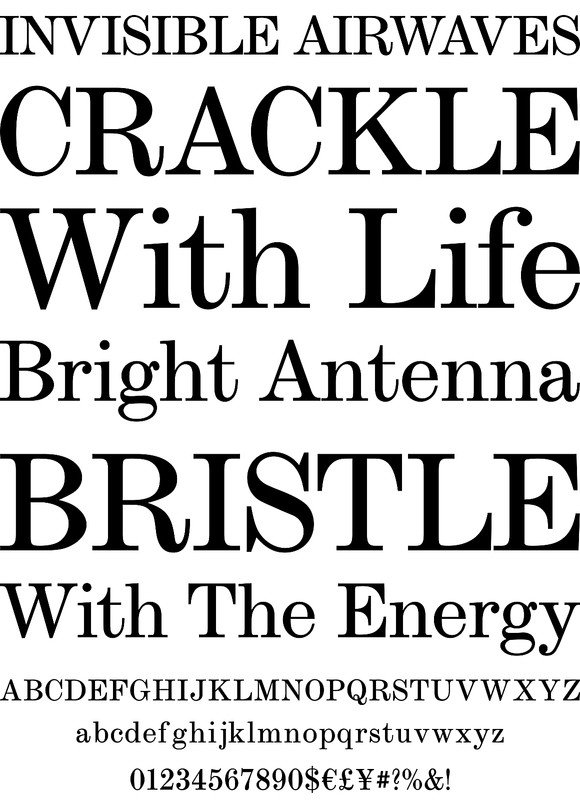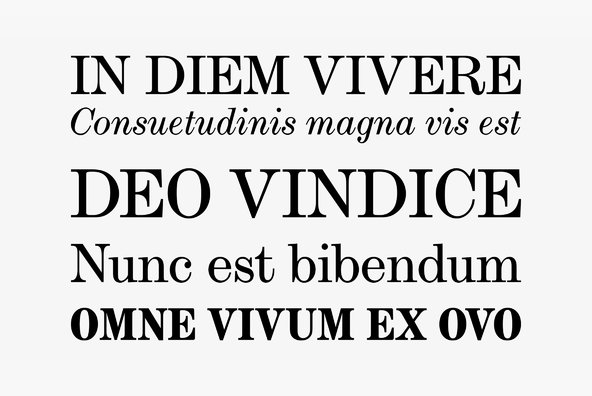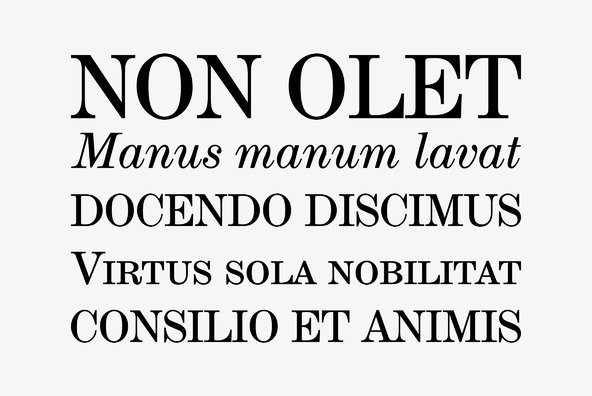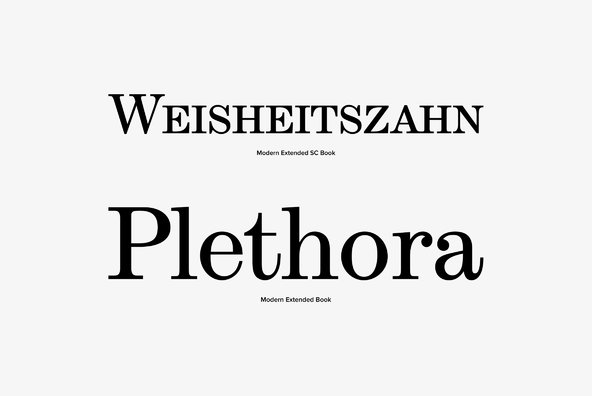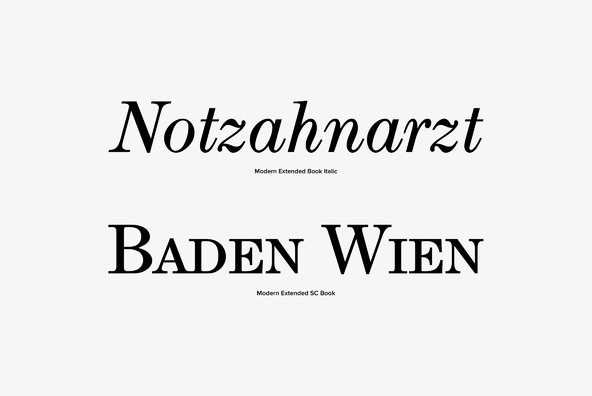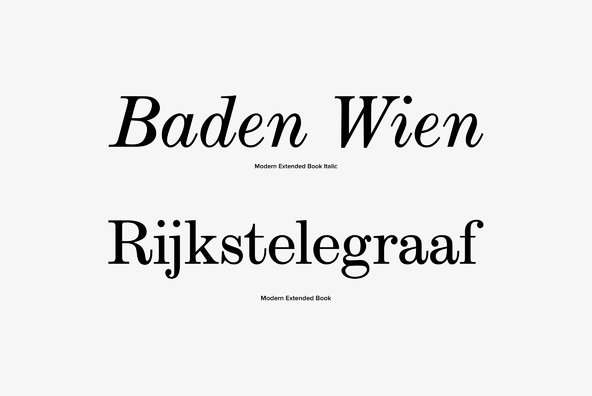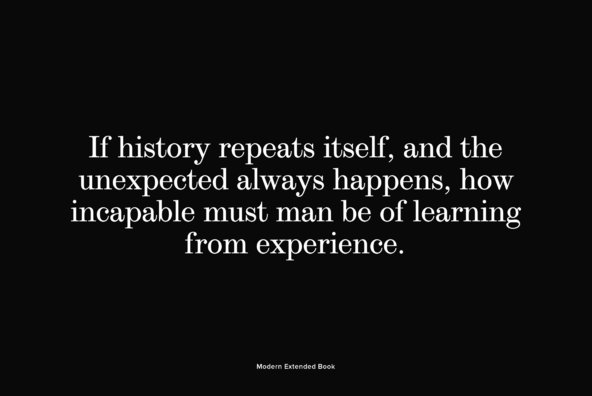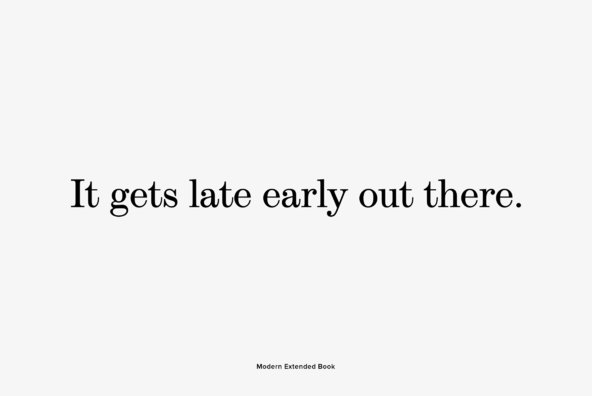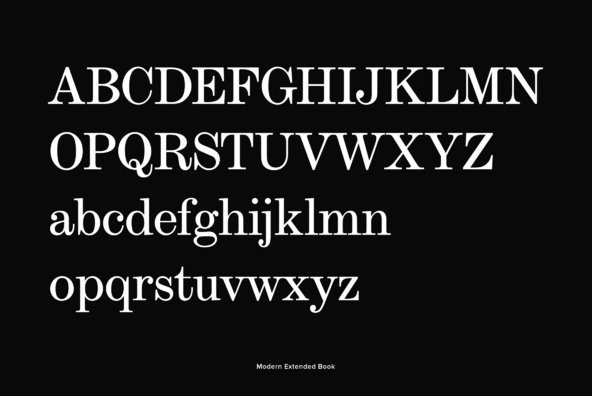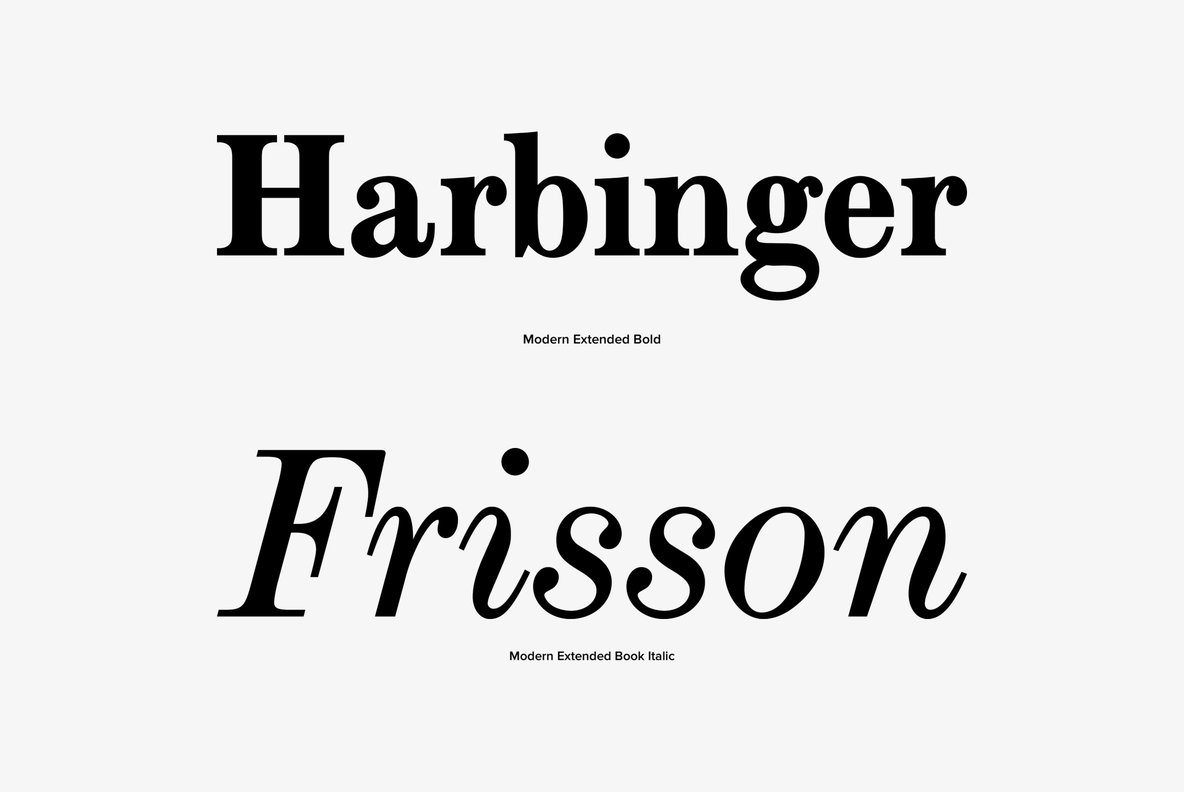
Modern Extended
Originally created by Monotype Studio in 1902, Modern Extended is a classic serif font release by URW. Contains language support for West, East, Turkish, Baltic, and Romanian.